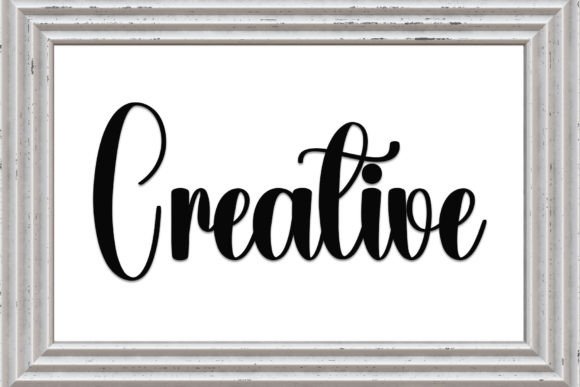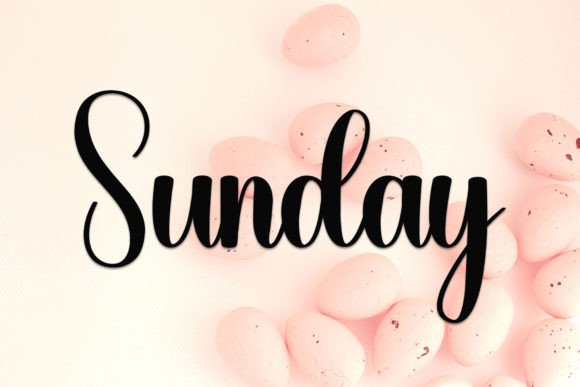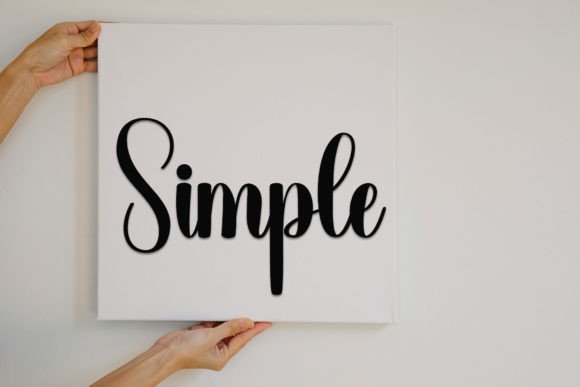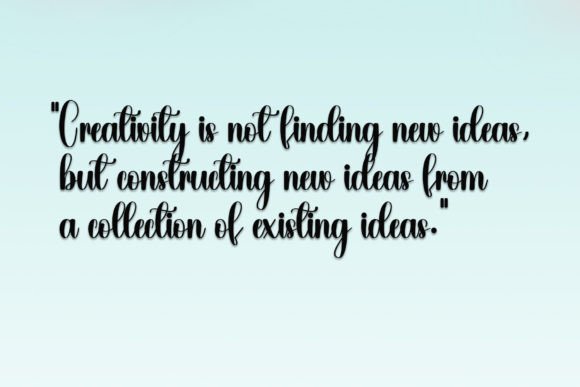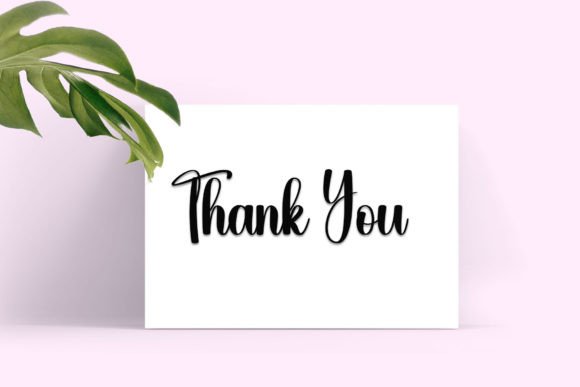
Introducing Bookish Font: Elevate Your Designs with Timeless Elegance
In the world of typography, few fonts capture the essence of classic calligraphy while exuding a modern vibe. Bookish Font is one such gem that has been making waves in the design community. This trendy handwritten font is inspired by timeless classic calligraphy, bringing an air of sophistication and elegance to any design project. In this article, we’ll delve into the features, benefits, and uses of Bookish Font, making it a must-have for designers and crafters alike.
The Inspiration Behind Bookish Font
Bookish Font draws its inspiration from traditional calligraphy, an art form that has been perfected over centuries. The font’s creator aimed to capture the fluidity, precision, and beauty of classic calligraphy, while infusing it with a contemporary twist. The result is a font that feels both nostalgic and modern, perfect for designs that require a touch of sophistication.
Key Features of Bookish Font
- Handwritten with a Personal Touch: Bookish Font boasts a handwritten style that feels personal and approachable. Its imperfections and subtle variations in line width give it a human touch, making it perfect for designs that require a personal and emotive feel.
- Contemporary Atmosphere: Despite being inspired by classic calligraphy, Bookish Font has a distinctly modern feel. Its clean lines, balanced letterforms, and generous spacing make it suitable for a wide range of design applications, from branding and advertising to packaging and digital media.
- Impeccable Form: Bookish Font’s impeccable form is a testament to its high-quality design. Each letterform has been carefully crafted to ensure perfect legibility, making it suitable for both headings and body text.
Benefits of Using Bookish Font
- Adds Elegance and Class: Bookish Font’s classic inspiration and modern twist make it an excellent choice for designs that require a touch of sophistication. Whether you’re working on a luxury brand, a wedding invitation, or a high-end product, Bookish Font is sure to elevate your design.
- Versatile and Adaptable: Bookish Font is incredibly versatile, making it suitable for a wide range of design applications. Its clean lines and balanced letterforms ensure that it looks great in various contexts, from digital media to print materials.
- Easy to Read and Legible: Bookish Font’s impeccable form and generous spacing make it easy to read, even at smaller font sizes. This makes it perfect for body text, captions, and other applications where legibility is crucial.
Using Bookish Font in Your Design Projects
- Branding and Identity: Use Bookish Font to create a sophisticated brand identity that exudes elegance and refinement.
- Wedding Invitations and Stationery: Bookish Font’s classic inspiration makes it perfect for wedding invitations, stationery, and other paper goods.
- Packaging and Product Design: Add a touch of luxury to your product packaging with Bookish Font, perfect for high-end products and premium brands.
- Digital Media and Advertising: Use Bookish Font in your digital media and advertising campaigns to create a sophisticated and eye-catching visual identity.
Bookish Font is a stunning handwritten font that brings a touch of timeless elegance to any design project. Its classic inspiration, modern twist, and impeccable form make it a versatile and adaptable choice for designers and crafters alike. Whether you’re working on a luxury brand, a wedding invitation, or a high-end product, Bookish Font is sure to elevate your design and leave a lasting impression.